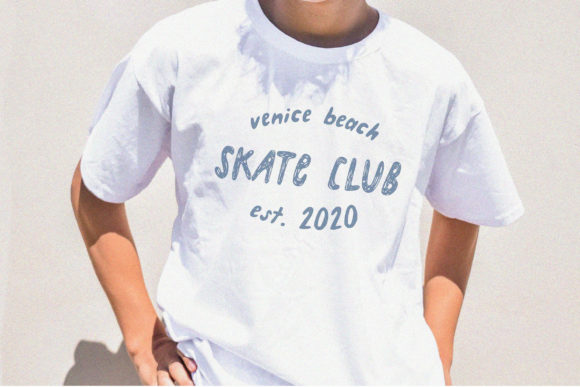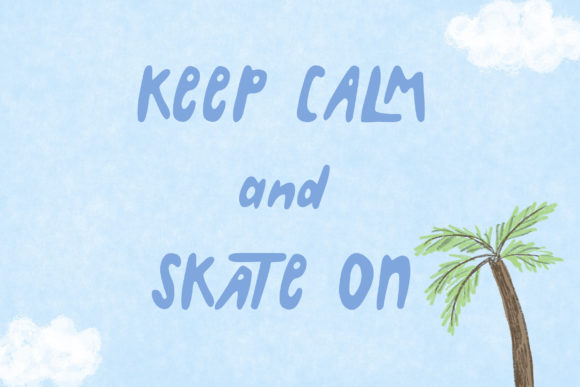
About Lazy Daisy Font
“Lazy Daisy Handwritten Font” is described as a super chill handwritten font, suggesting a relaxed and casual style. The mention of alternates and cool ligatures indicates that the font offers additional design elements, allowing users to customize and enhance the overall look of their projects.
The term “super chill” suggests a laid-back and easygoing vibe, making it suitable for projects that aim to convey a casual and informal atmosphere. Handwritten fonts with these qualities are often chosen for creative endeavors that prioritize a friendly and approachable feel.
The inclusion of alternates and ligatures is highlighted as a feature to add major style points to your next project. Alternates refer to alternative versions of specific characters, and ligatures involve the combination of two or more characters into a single, stylized glyph. These features enhance the font’s versatility and creativity, allowing designers to achieve a unique and personalized look.
In summary, “Lazy Daisy Handwritten Font” is presented as a relaxed and customizable font, ideal for projects that seek a laid-back and stylish aesthetic. The availability of alternates and cool ligatures provides users with creative options to make their designs stand out.